Looking for professional font
Do you know a more professional font than this one?
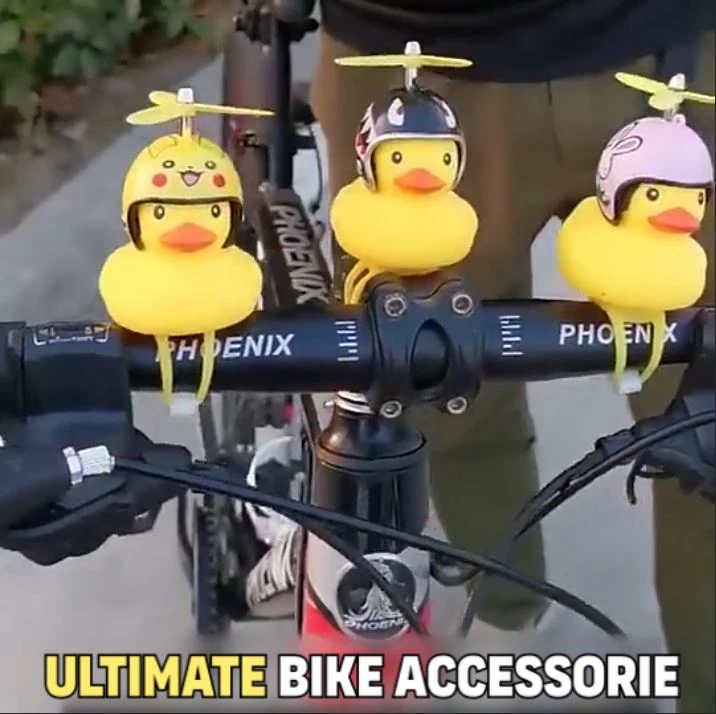
When is a font professional?
Font needs to be inline with content.
Toy ducks? Toy-ish font?
Might go for the font used on the bike.
I know there are some exceptions, but I think it's generally a bit reductive to call one font inherently 'professional'. For writing a letter or email, sure perhaps... but in the world of creative media, it all comes down to intent - and not just intent, but your approach to the graphic design in your video as a whole.
You can try any number of fonts, but there are more factors than that. The typesetting and text treatment, the color choices, where it's positioned, and how well it serves the goal you are trying to achieve (ie. are you branding? making subtitles? etc.) For example, what looks professional for subtitles will look very different than what looks professional for creative graphics for branding.
I will preface by saying I do not consider myself a professional graphic designer, rather, just an editor who makes motion graphics - so someone might have better advice, but I would imagine in the same way that good editing services the goals you have for your viewers, same would go for graphics.
Just by seeing ducks on a bike and "Ultimate Bike Accessorie" there's not much context. I'm not sure if simply changing the font will suddenly solve your problem either. That said, Adobe has a bunch of fonts you can try out via Adobe Fonts, so it doesn't hurt to start there if you want to check some out. Still, I will mostly advocate that you might want to further research how you can broaden your graphic design approach and skillset, as I think that will pay off for you more in the long run, especially for future projects. There are tons of sites and YouTube videos out there in that vein.
it's a product video, a nice font that makes you want to buy, a text big enough to fill the blurred area and the height
a nice font that makes you want to buy
This I suppose is the sentiment I am suggesting against. A font choice alone won't determine if I want to buy something. Obviously, there's the product itself and if I need it, but aside from that it's other things in the video: how well the product is demonstrated, if the information and video is clear and well-presented, etc.
What you have shown looks akin to what you might see on social media - which isn't exactly saying it's bad or good. Just what seems to be common for the form factor - using text on screen considering feeds are often muted.
I'm going to stay away from providing in-depth critique, because a lot of that is personal preference and like I said, researching graphic design best practices (as well as best marketing practices in your case) will probably get you a lot further than anything I could tell you for effective marketing video strategy.
That's a pretty broad question. Try using the filters on Adobe Fonts to narrow down what you want:
In your mind, what does professional mean?